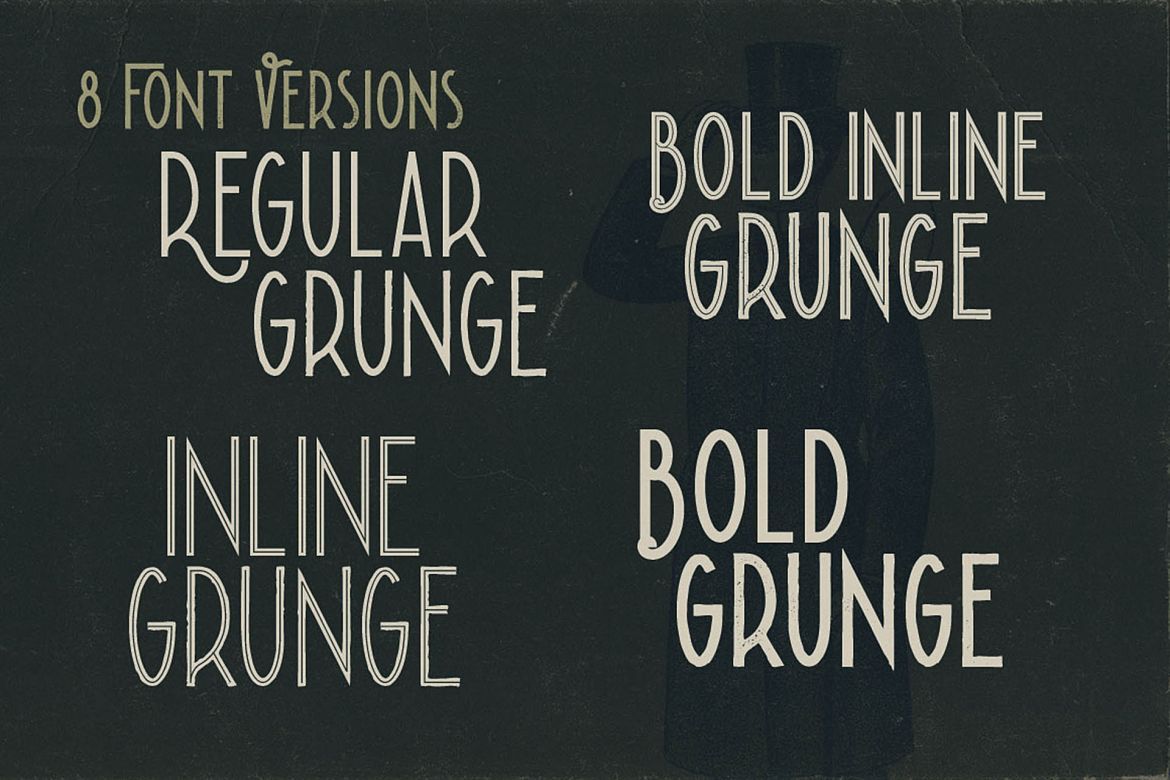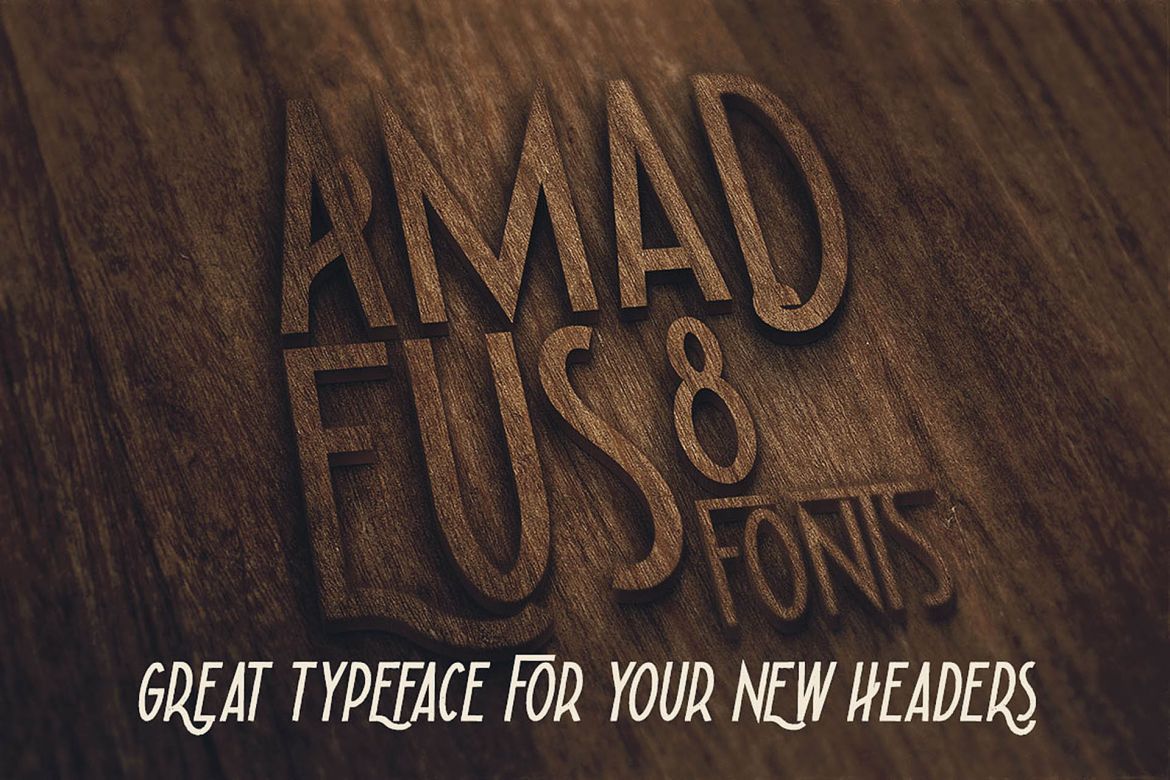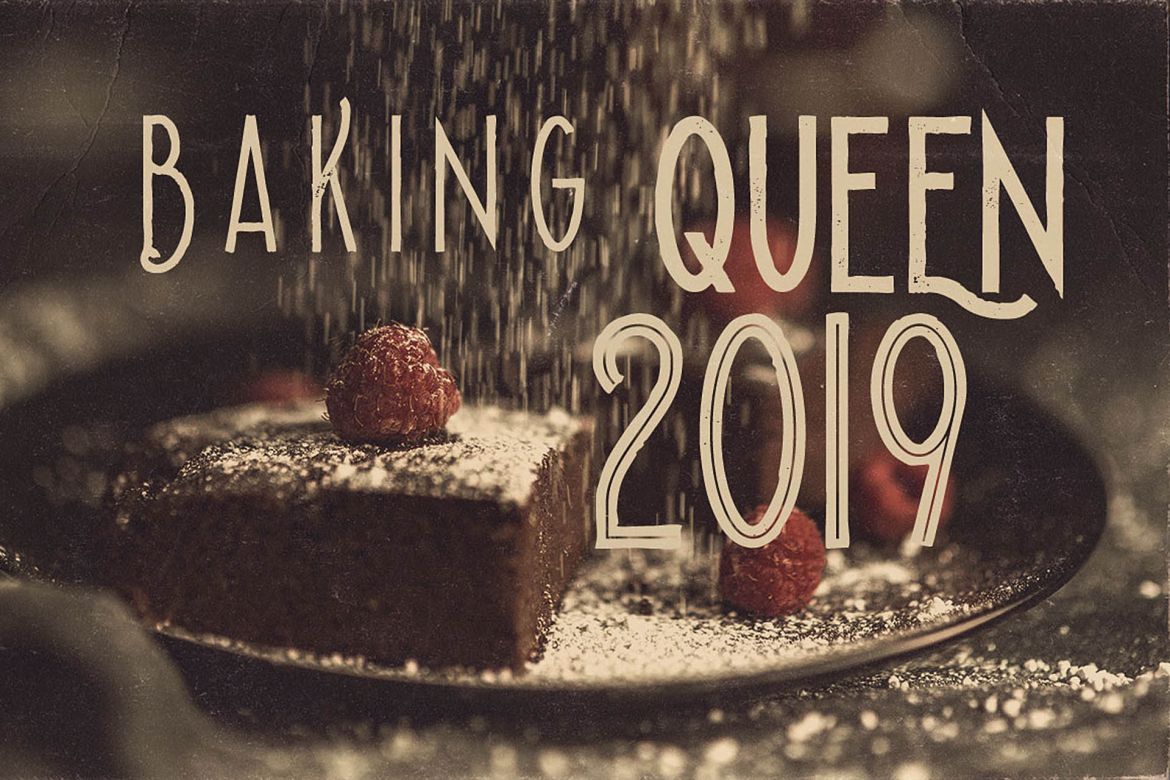
Amadeus - Display Font
Unique vintage & grunge style custom sans serif font with 8 styles: regular and grunge, inline and grunge, bold & grunge, bold inline & grunge.